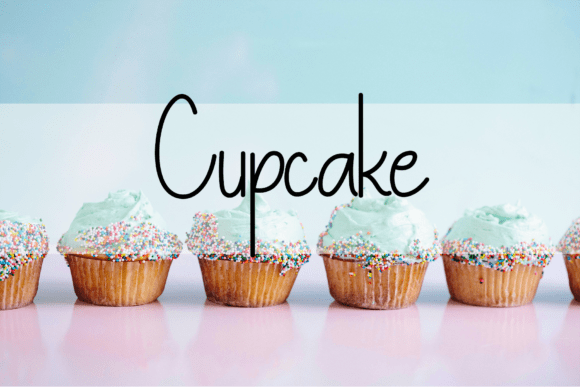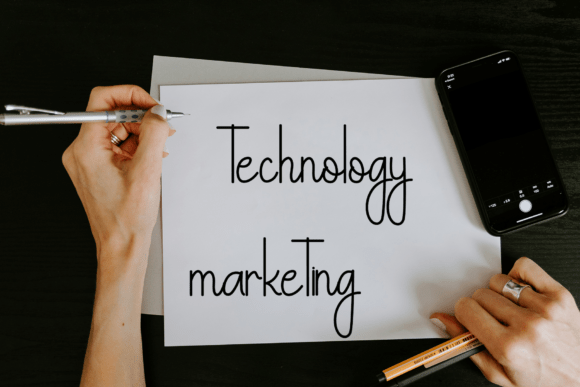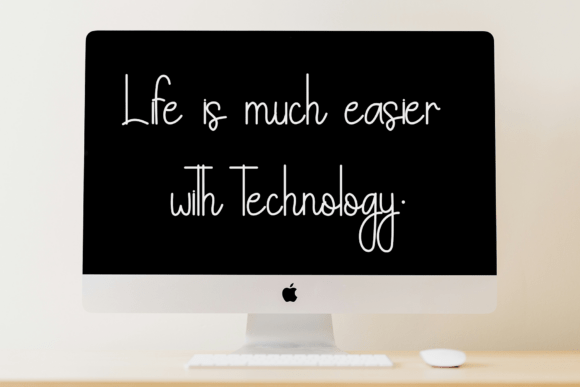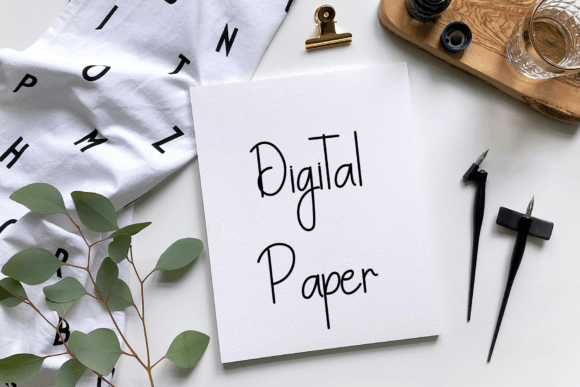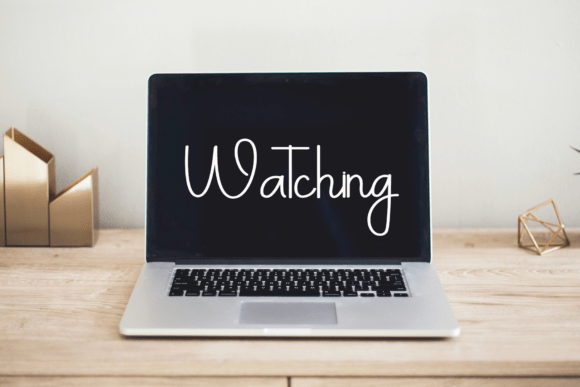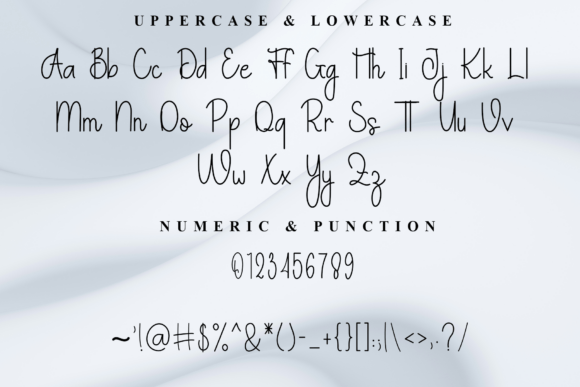
Introducing Birthday Font: The Perfect Addition to Your Design Arsenal
Are you tired of using the same old fonts for your personal projects, invitations, and social media graphics? Look no further! Birthday Font is here to add a touch of warmth and friendliness to your designs. This casual and creative font is designed to make your projects stand out with its round, playful strokes that create a relaxed and approachable feel.
The Charm of Birthday Font
What sets Birthday Font apart is its charming, hand-drawn aesthetic. Each letter is carefully crafted to give your designs a fun and unique touch. Whether you’re creating a birthday invitation, a social media post, or a personal project, this font is sure to make it feel special. The font’s playful strokes and rounded edges create a sense of warmth and friendliness that’s hard to resist.
One of the best things about Birthday Font is its versatility. It’s perfect for a wide range of design projects, including:
- Personal projects: Add a touch of personality to your journals, planners, and scrapbooks.
- Invitations: Create beautiful and unique invitations for birthdays, parties, and other celebrations.
- Social media graphics: Make your social media posts stand out with eye-catching graphics and typography.
- Branding: Use Birthday Font to create a friendly and approachable brand identity.
Why Choose Birthday Font?
So why choose Birthday Font over other fonts? Here are just a few reasons:
- Unique and playful design: Birthday Font’s hand-drawn aesthetic sets it apart from other fonts.
- Versatile: Use it for personal projects, invitations, social media graphics, and more.
- Warm and friendly feel: Perfect for creating designs that feel approachable and inviting.
If you’re looking for a font that adds a touch of warmth and friendliness to your designs, look no further than Birthday Font. With its playful strokes, charming aesthetic, and versatility, it’s the perfect addition to your design arsenal. Whether you’re a designer, crafter, or simply someone who loves to create, Birthday Font is sure to become your new go-to font.